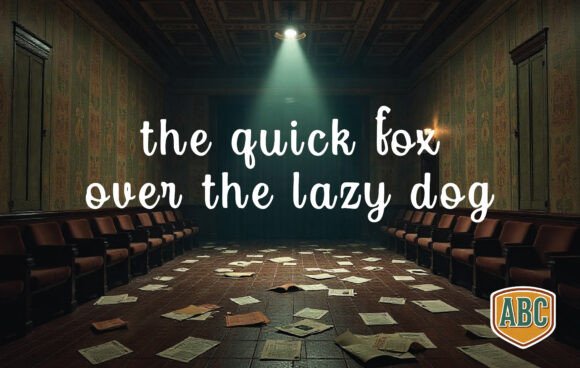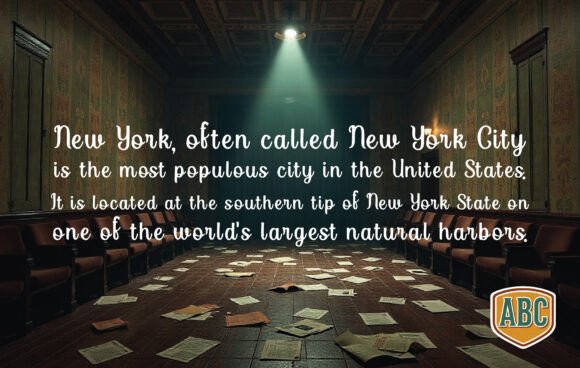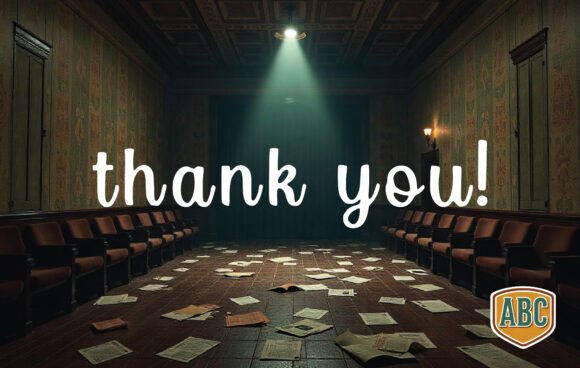
Unleashing the Beauty of Bethany Script Font
Do you remember the moment when a beautiful handwritten note from a loved one made your heart skip a beat? The way the pen glided across the paper, creating a unique and personal message that touched your soul. This is the magic that Bethany Script Font brings to your designs, making every project feel like a heartfelt expression of love and creativity.
Bethany Script Font is a timeless and lovely handwritten font that’s perfect for creating eye-catching logos, branding, and quotes. Its unique and beautiful touch will make your design come alive, making it a valuable addition to any designer’s toolkit. Whether you’re working on wedding stationery, journals, greeting cards, product packaging, or social media designs, Bethany Script Font is sure to add a touch of elegance and sophistication to your work.
Bethany Script Font Key Features
- Font Style: A beautiful, elegant script font ideal for various design projects, including invitations, logos, and more.
- Unique Characteristics: Features a flowing, handwritten feel with subtle flourishes, giving it a personal and artistic touch.
Bethany Script Font Review
Overall, I’m quite impressed with the Bethany Script font. It’s got a certain charm that’s hard to resist. ✨ The flowing connections between letters make it perfect for creative projects where you want to add a touch of elegance.
- ✨ Beautiful connections between letters, making it perfect for hand-written style designs.
- ✨ Elegant and sophisticated, suitable for high-end branding and marketing materials.
- ✨ Versatile and can be used for a variety of projects, from wedding invitations to magazine articles.
- ⚠️ May be difficult to read for short passages or large blocks of text due to its cursive nature.
- ⚠️ Some letters may be hard to distinguish from one another, which can make it challenging to use for body text.
- ⚠️ Limited font sizes and styles may not be suitable for all design requirements.
Overall, I think the Bethany Script font is a great addition to any designer’s toolkit. While it may have some limitations, its unique charm and elegance make it perfect for specific design projects where you want to add a touch of sophistication.
Getting the Most Out of Bethany Script
For the best results, use Bethany Script in combination with other elegant fonts and high-quality images. Consider using it for:
- Editorial and magazine design
Alternatives to Bethany Script Font for Designers
Bethany Script Font is a beautiful script font, but there are other options available that can provide a similar look and feel. Here are a few alternatives to consider:
Carolyna Pro is a modern script font that is perfect for creating elegant and sophisticated designs. It features a flowing, cursive design that is ideal for use in titles, headings, and other text elements where a touch of elegance is needed. Compared to Bethany Script Font, Carolyna Pro has a more refined and polished look, making it a great choice for high-end designs.
Great Vibes is a beautiful script font that features a fun and playful design. It is perfect for use in designs where a more casual and laid-back tone is desired. Compared to Bethany Script Font, Great Vibes has a more relaxed and informal feel, making it a great choice for designs that need a touch of whimsy.